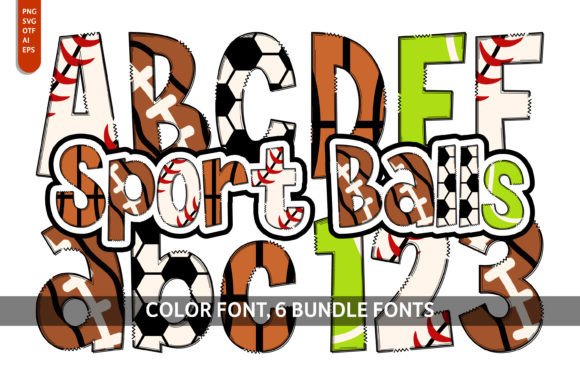
Introducing the Sport Balls Bundle Font collection, a perfect choice for those seeking the best fonts for minimal design! Created by the talented team at Imagination Switch, these colorful fonts are designed to add a playful and artistic touch to your projects.
Whether you're working on children's books, posters, invitations, or greeting cards, these fonts are guaranteed to captivate your audience. With their whimsical and easy-to-read styles, they create a delightful reading experience for young and old alike.
One of the standout features of the Sport Balls Bundle Font collection is its compatibility with popular design tools such as PhotoShop, Illustrator, Silhouette, and Inkscape. As a color font (Opentype-SVG), it allows you to bring your designs to life with vibrant and eye-catching typography.
Imagine the possibilities with the Sport Balls Bundle Font collection. Create stunning visuals for children's books, infuse your posters with a touch of whimsy, or design unique and memorable invitations that leave a lasting impression.
With these fonts, your projects will stand out from the crowd, making a statement and capturing the hearts of your audience. Let your creativity soar as you explore the endless combinations and playful variations offered by this exceptional collection.